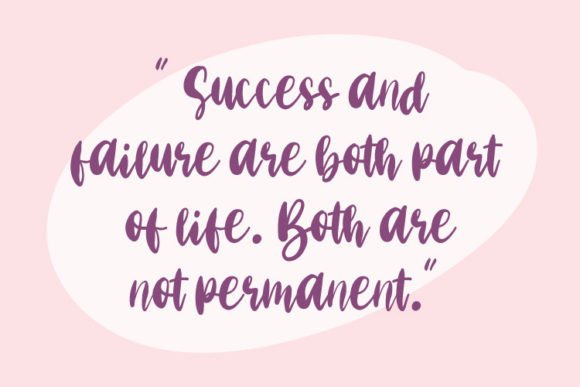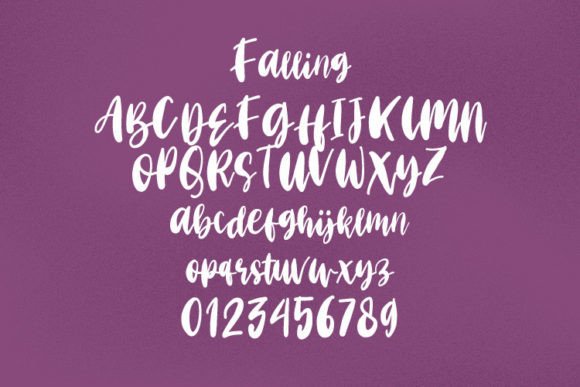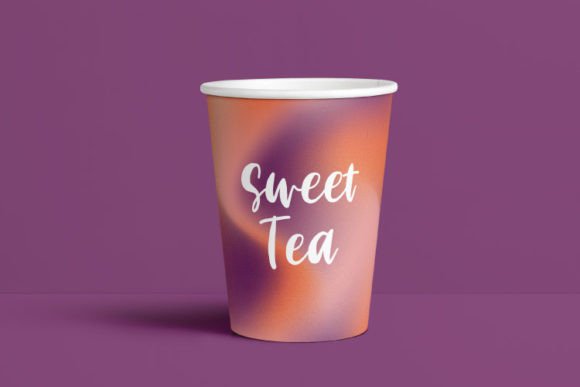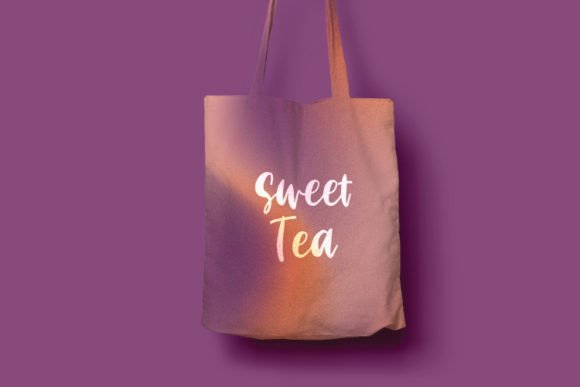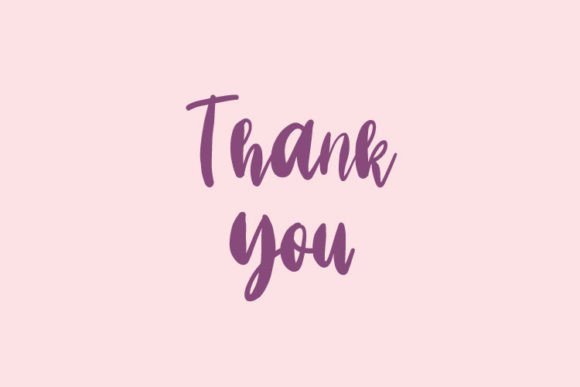
The Designer’s Delight: Falling Font
Have you ever been in the middle of a design project, and suddenly, you’re stuck on finding the perfect font? I recall a recent experience where I was working on a whimsical craft project, and my client’s request was to make it feel ‘handwritten’ and ‘real.’ After scouring through numerous font options, I stumbled upon the Falling Font, and it instantly became my go-to choice. In this article, I’ll share my journey with this beautiful font, its capabilities, and how you can make the most of it in your designs.
An Honest Review of Falling Font
What I Love About Falling Font ✨
- ✅ Clean and cute aesthetic: Falling Font boasts a beautiful, uncluttered design that immediately captures attention.
- ✅ Adaptable: This font seamlessly fits into various design contexts, from playful crafts to more sophisticated branding projects.
- ✅ Authentic vibe: The handwritten feel of Falling Font adds a personal touch to your designs, making them feel more realistic and relatable.
- ⚠️ Limited character set: While Falling Font covers the essential characters, it might not have every special character or symbol you need.
- ⚠️ May not be suitable for very formal projects: Due to its playful nature, Falling Font might not be the best fit for projects requiring a more formal or corporate tone.
Exploring OpenType Features, Glyphs, and Stylistic Alternates
The Story Behind Falling Font
Falling Font was created with the intention of providing a clean, yet personal font for designers and crafters. The designer aimed to create a font that felt both authentic and adaptable, perfect for a wide range of projects. By combining a simple, elegant design with a handwritten feel, Falling Font has become a versatile choice for creatives.
| Font Name | Falling Font |
| Author | pustudio |
Q: What type of projects is Falling Font best suited for?
A: Falling Font is ideal for various design projects, including crafts, branding, and social media graphics. Its adaptable nature makes it suitable for both playful and more sophisticated designs.
Q: Does Falling Font support OpenType features?
A: Yes, Falling Font supports OpenType features, allowing you to customize your text with stylistic alternates, glyphs, and more.